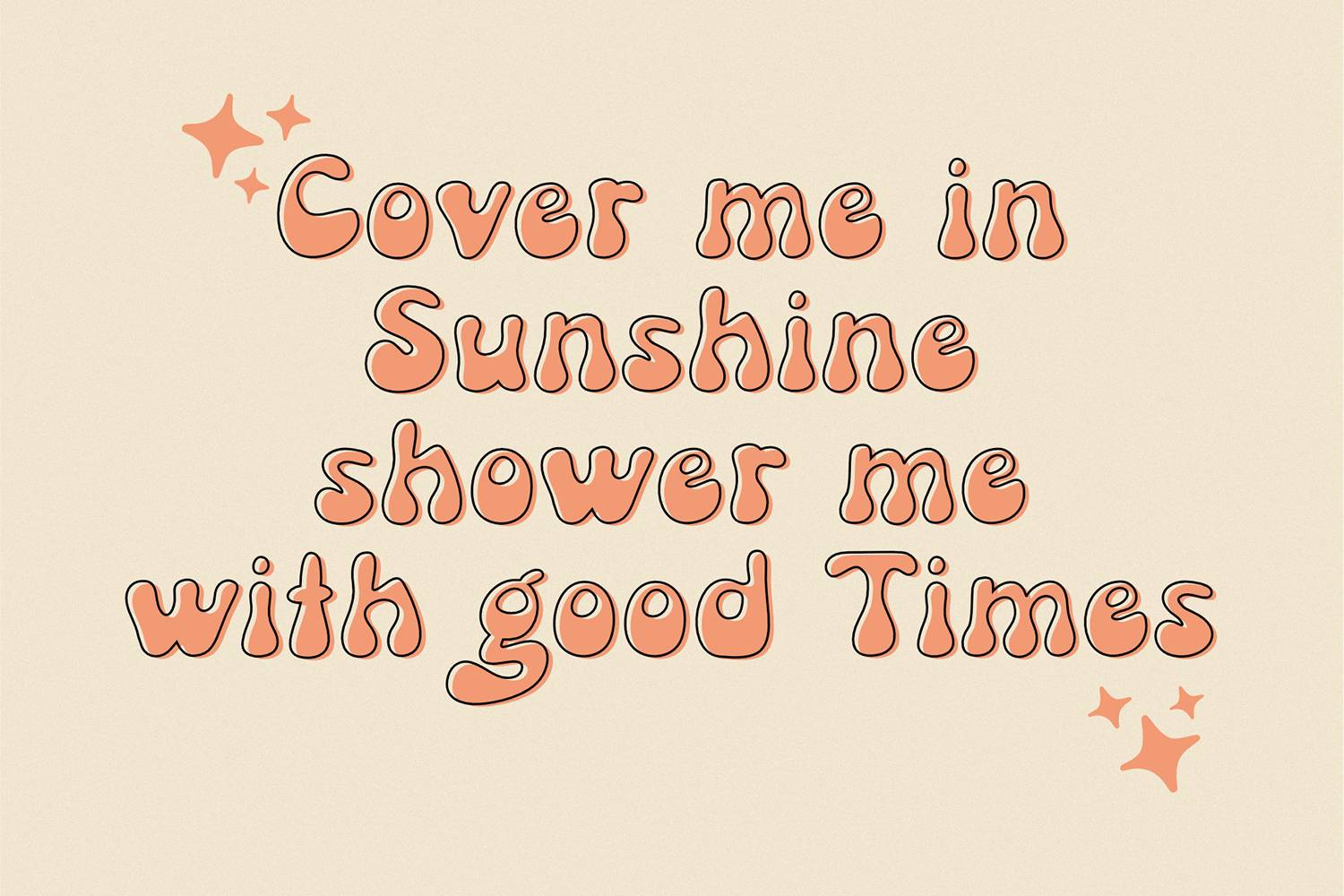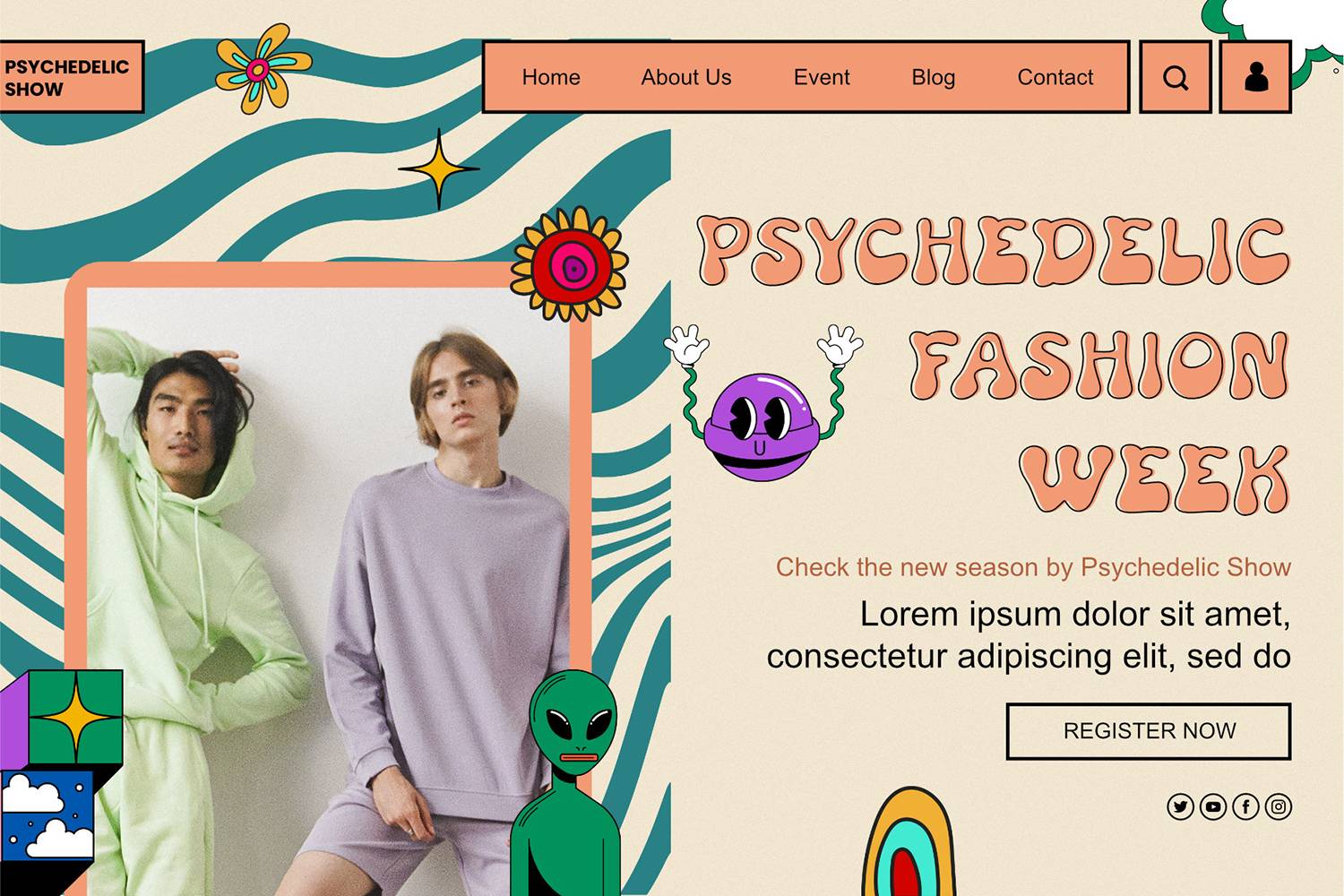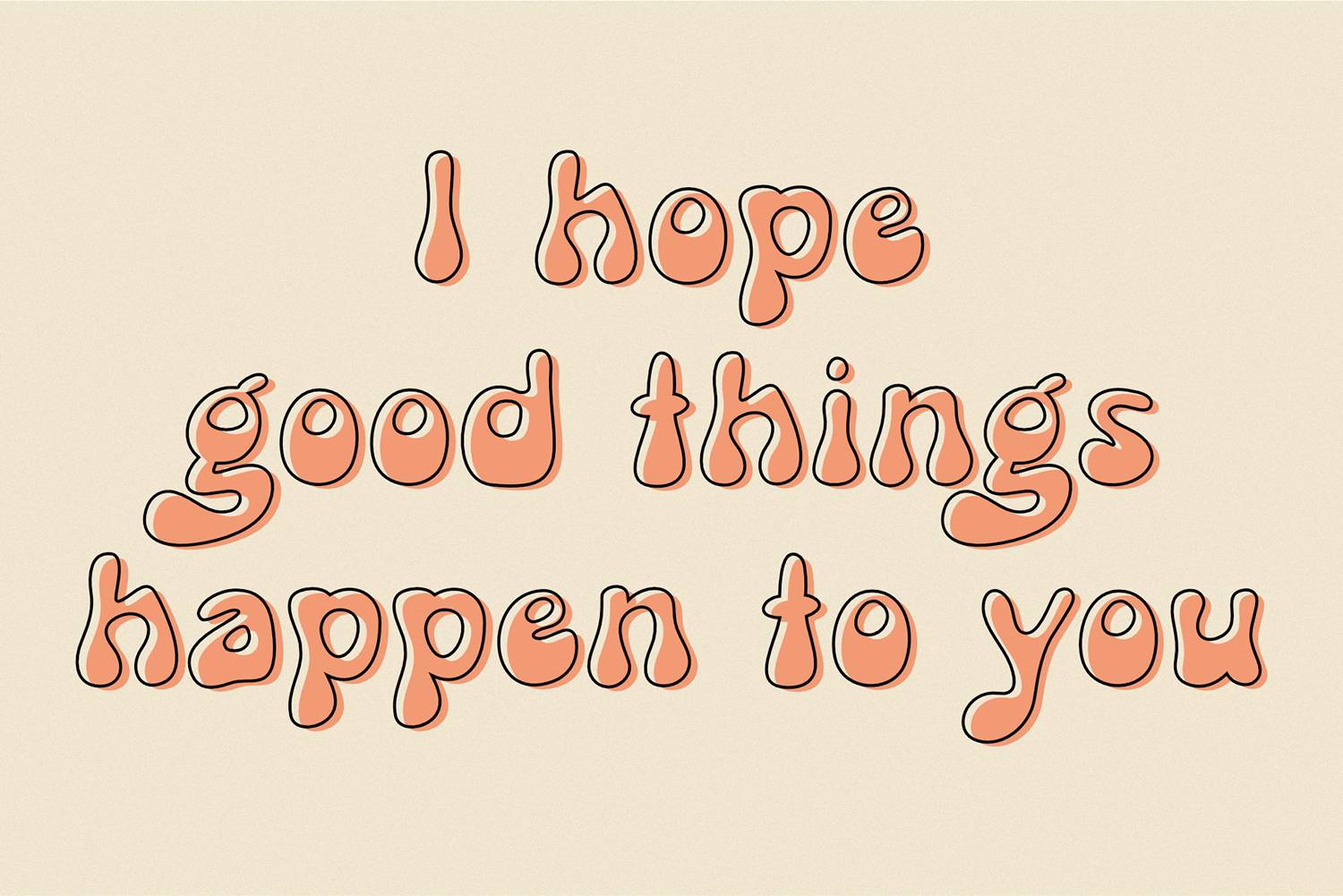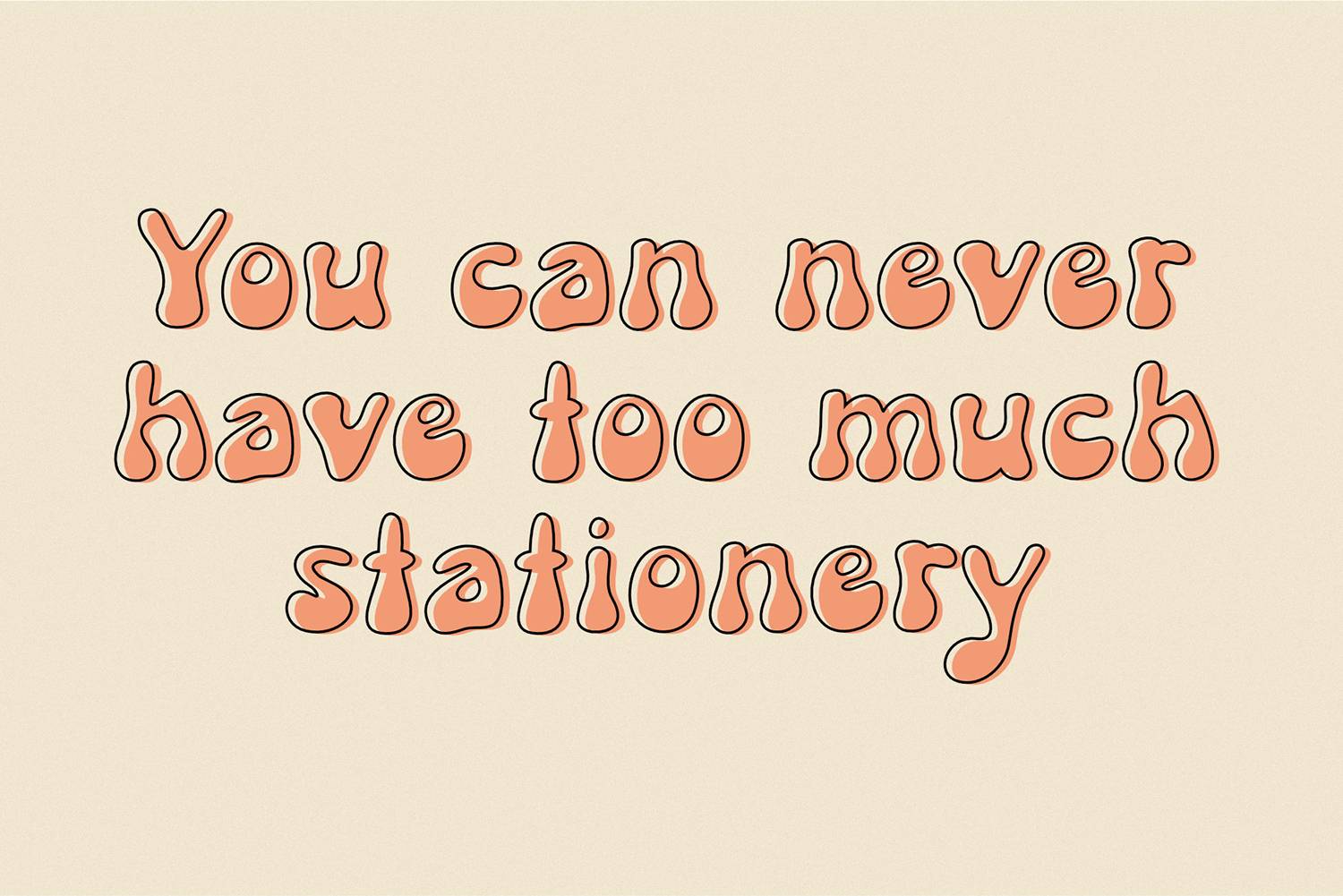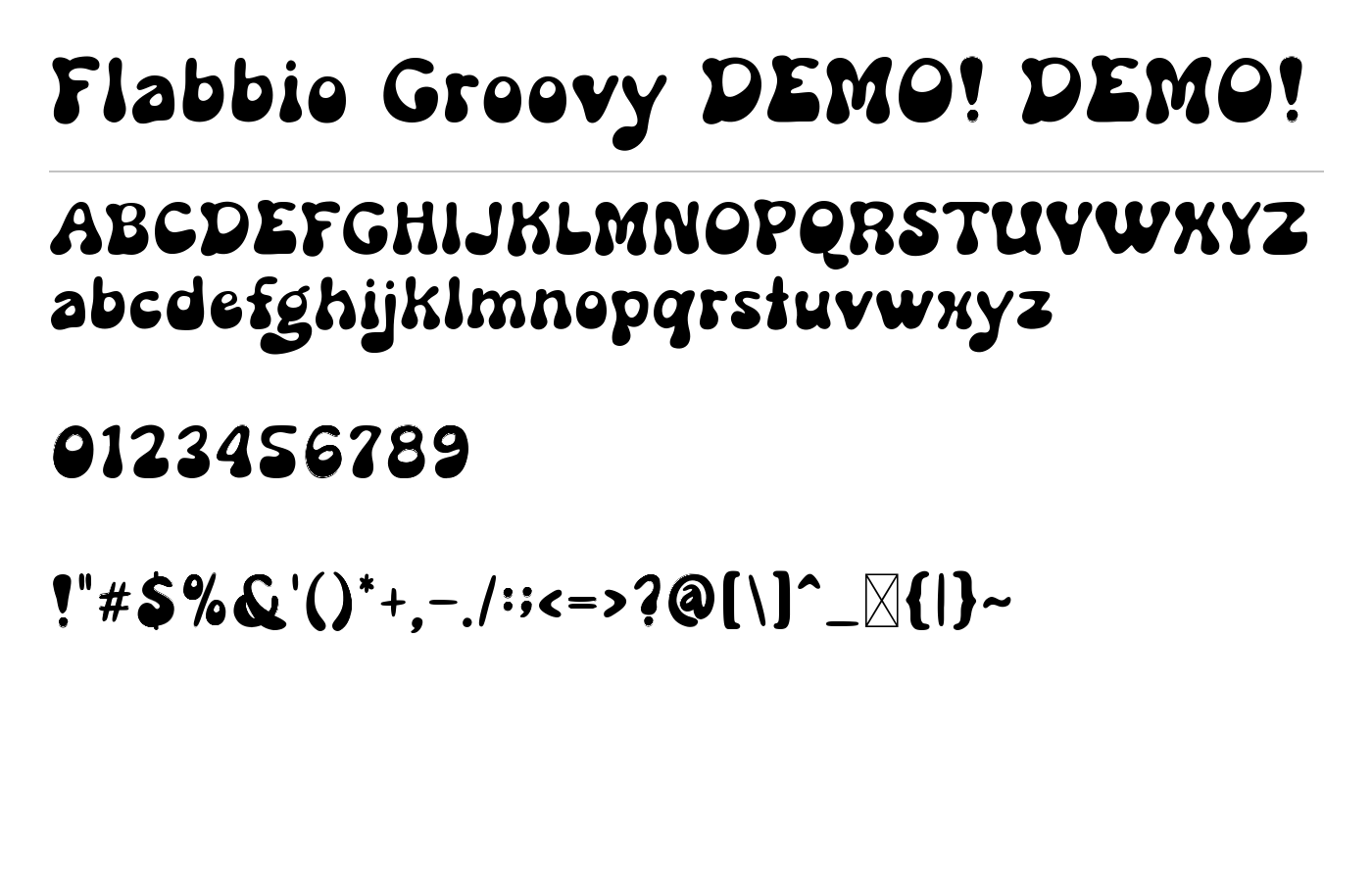
Flabbio Groovy Font is a playful, chunky sans serif with a bubbly, retro vibe reminiscent of the 1960s and 70s. Its wide, rounded letterforms and low contrast strokes give it a friendly and informal personality, making it perfect for fun branding, posters, and creative headlines that want to convey energy and a carefree spirit. This font works especially well in projects seeking a nostalgic yet vibrant look that stands out with charm and warmth.
Flabbio Groovy Font
About Flabbio Groovy Font
| Font family | Flabbio Groovy Font |
| Designer | Jimtype Studio |